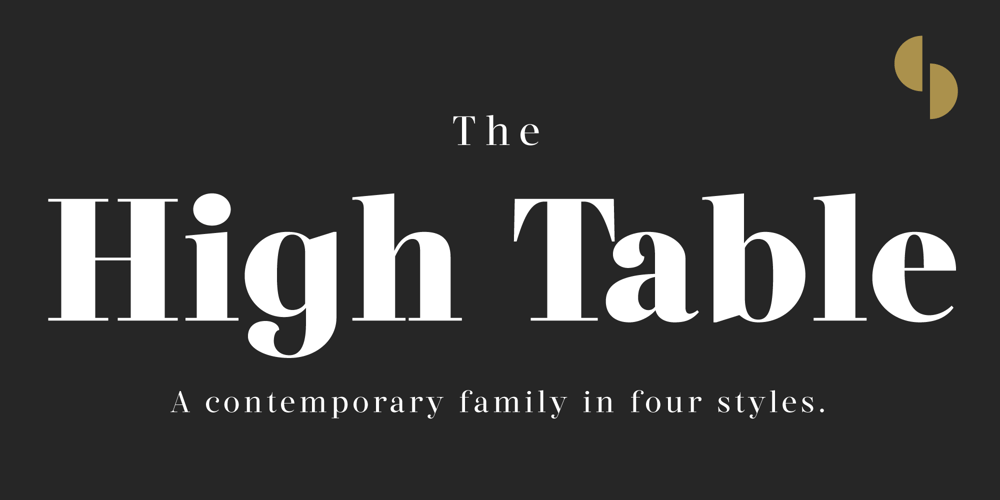
High Table
High Table font
High Table Font Family was designed by SAMUEL DU and published by SAMUEL DESIGN. High Table contains 4 styles and family package options. The key words for this font are taste, elegance, storytelling, and a little bit of dynamism. HIGH TABLE family have exquisite details and great quality. We believe that only high quality and unique details can move people more than exaggerated shapes.Fonts are so powerful, they tell a moving story. The PACE typeface was chosen to tell a story quietly but with dynamism. Readers are delighted and relaxed when they see this font family, and colleagues read the story with respect. A brand needs a story, and a brand’s story needs the most appropriate font to carry it.